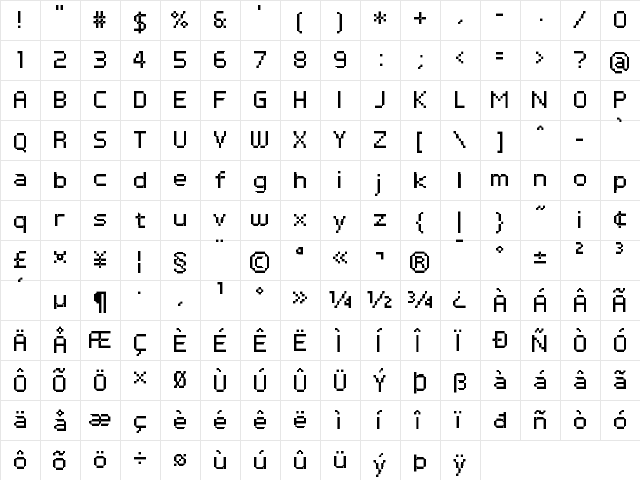
FFF Atlantis Condensed Regular
Design Context for FFF Atlantis Condensed Typeface
FFF Atlantis Condensed is a composed and adaptable typeface that performs quietly and consistently across a wide range of design contexts. The condensed width makes it efficient for tight spaces without sacrificing legibility.